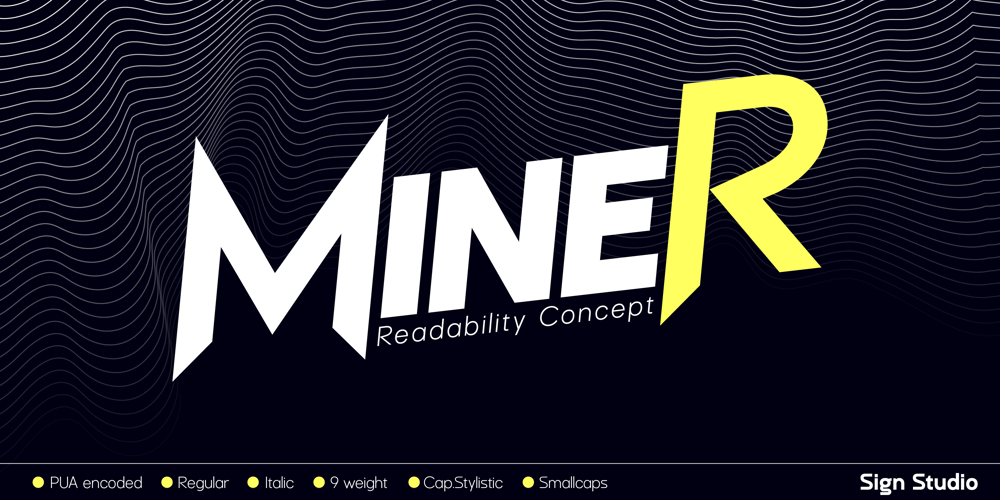
Miner Font Family was designed by Sugi Yanto and published by Sign Studio. Miner contains 18 styles and family package options. Miner font family has 9 thicknesses with an Italic version of each, making it versatile for both formal writing and support for other designs.There are alternative capital letters from A-Z that can be used to support the design process of a logo or brand.The thickness of the small capital character is adjusted to the main character and has an identical distance to the lowercase character.It is suitable for product branding, logotype, brochures, posters, and also website design because this font has a minimalist design and readability concept.